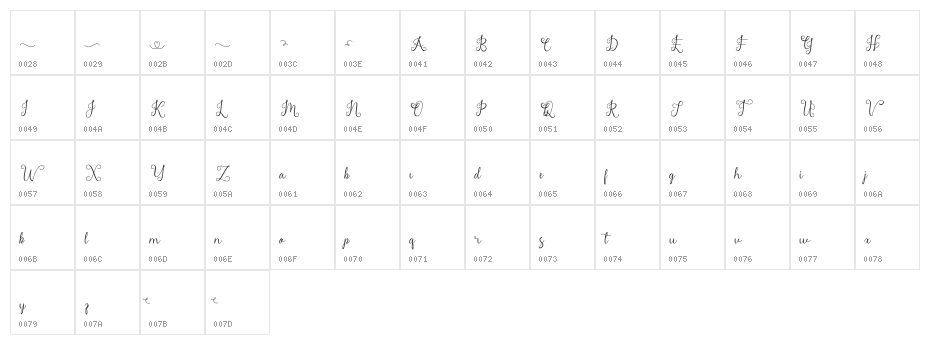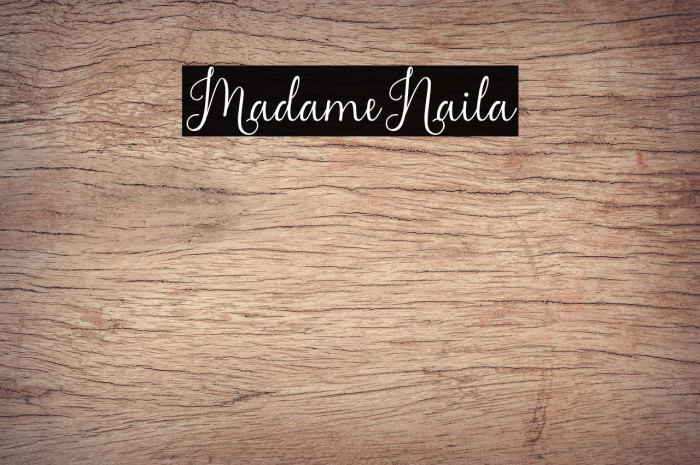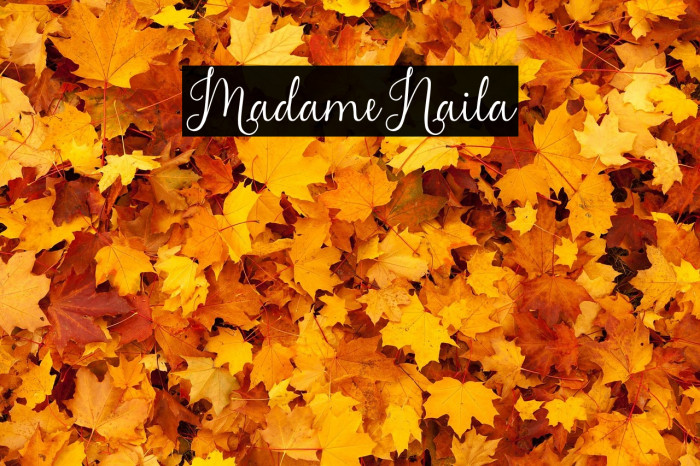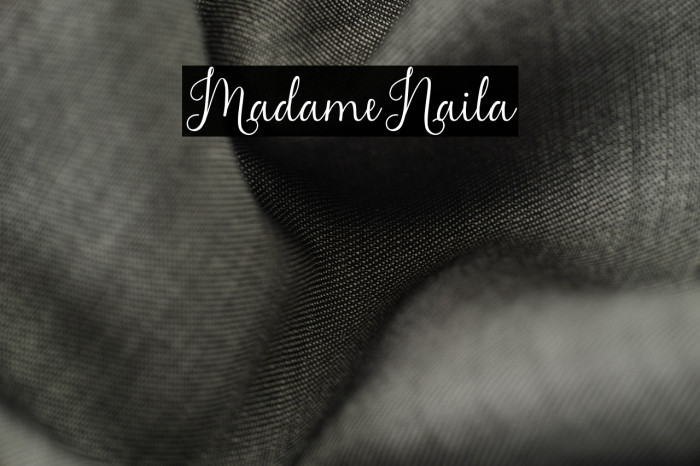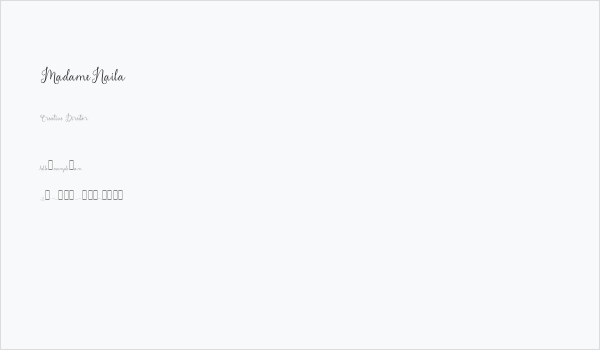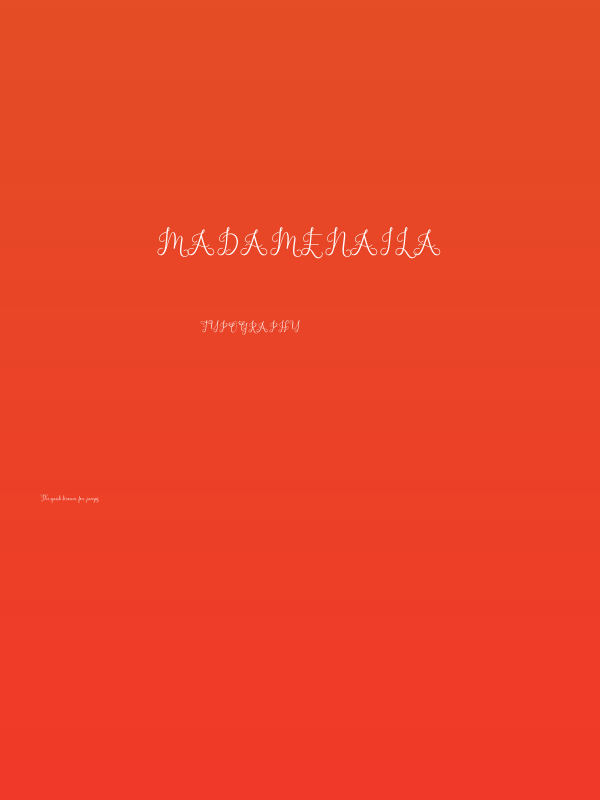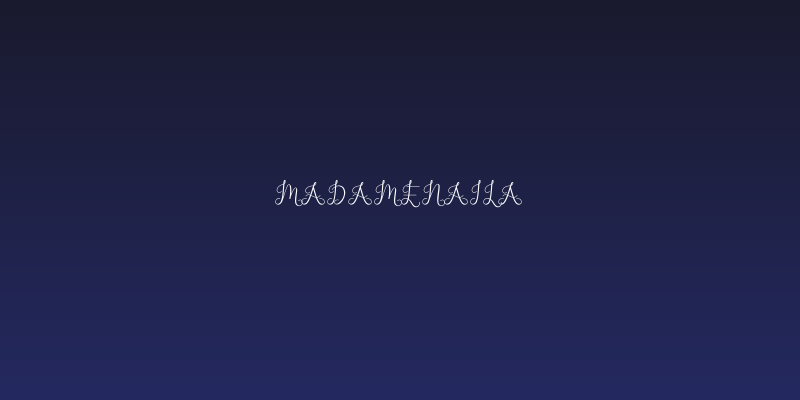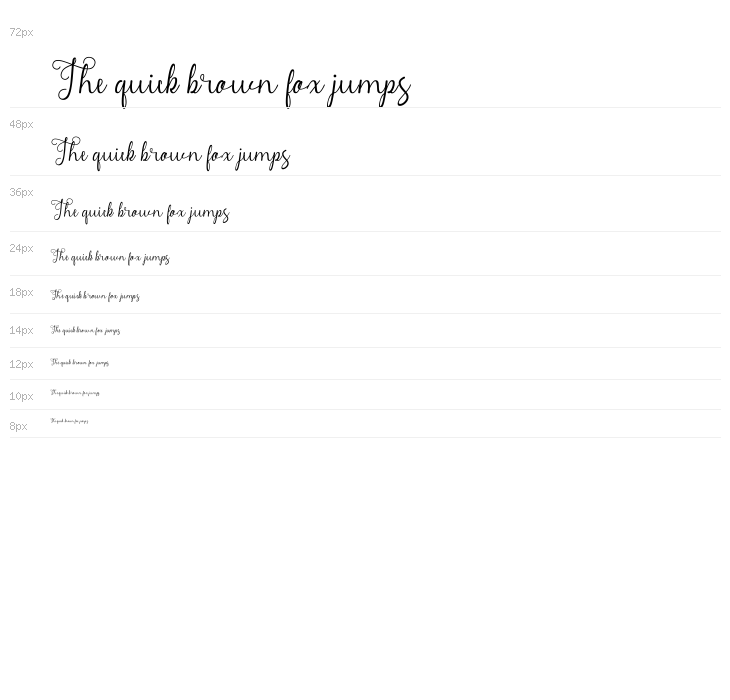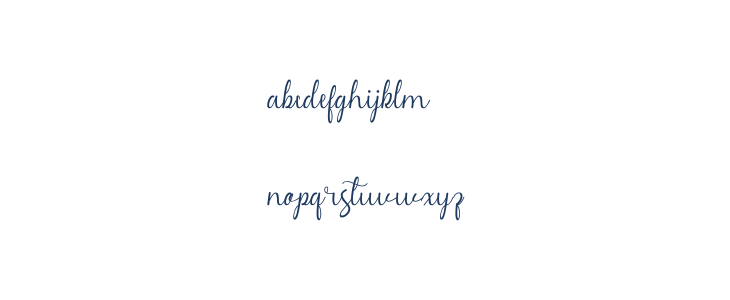
MadameNaila Font
MadameNaila Description
This elegant script font features a flowing, cursive style with intricate loops and swirls, giving it a sophisticated and artistic appearance. The uppercase letters are particularly ornate, with each character exhibiting unique flourishes that add a touch of whimsy and charm. The lowercase letters maintain a consistent cursive flow, complementing the uppercase with a slightly more restrained design. The font has a delicate and airy feel, with thin strokes that enhance its graceful aesthetic. It is well-suited for projects that require a touch of elegance and refinement.
| Overall Style | Elegant, Artistic |
| Proposed Projects | Ideal for wedding invitations, elegant branding, greeting cards, and decorative quotes. |